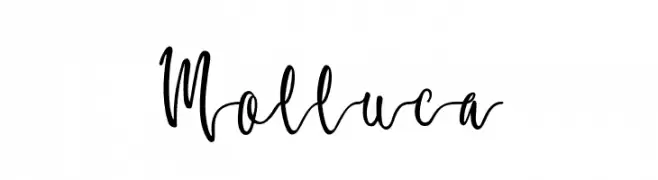
A lively, flowing script font with elegant cursive letterforms.
An elegant script font with flowing, cursive letters and sophisticated style.
A sophisticated script font with flowing, interconnected characters and elegant flourishes.